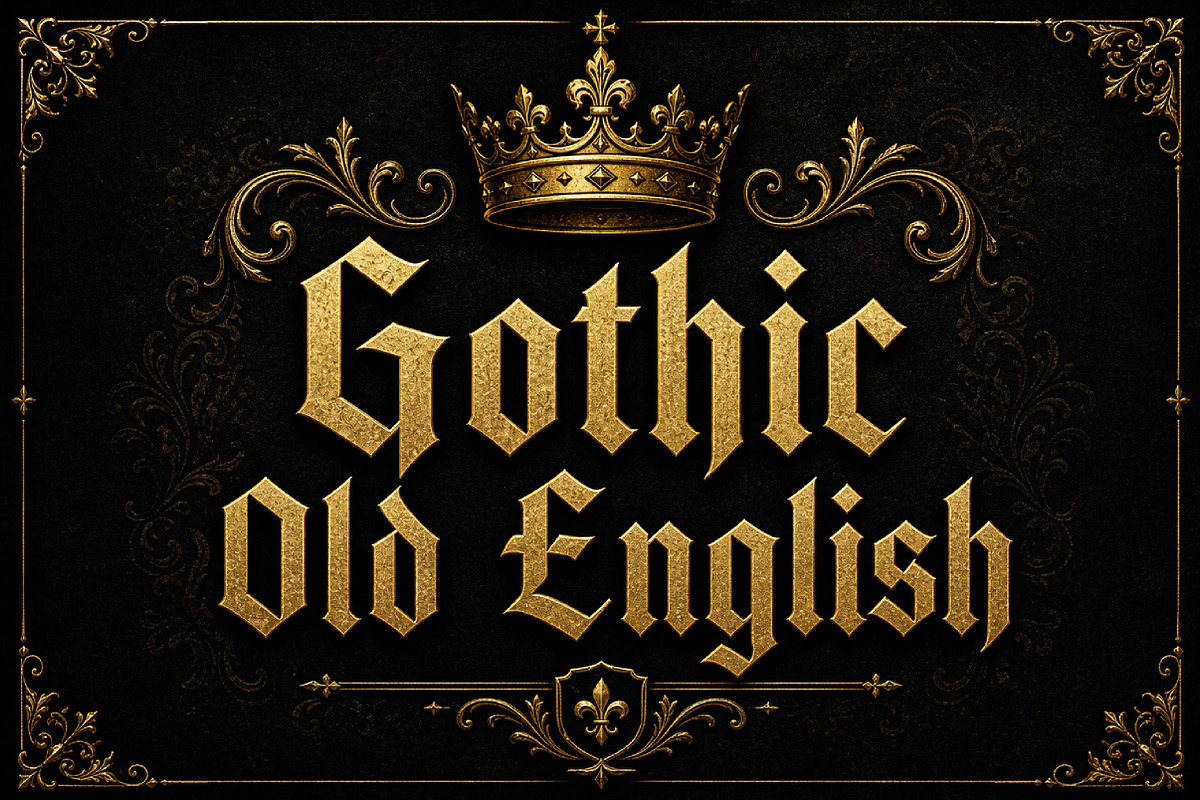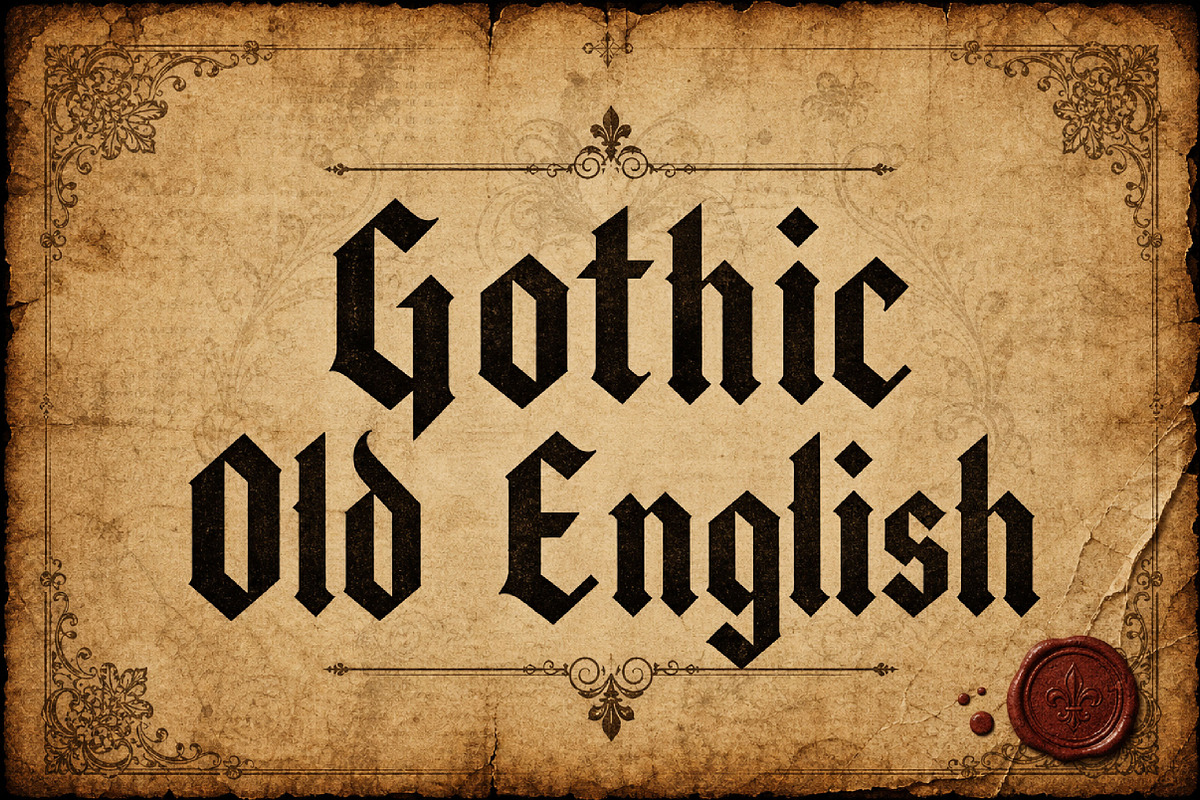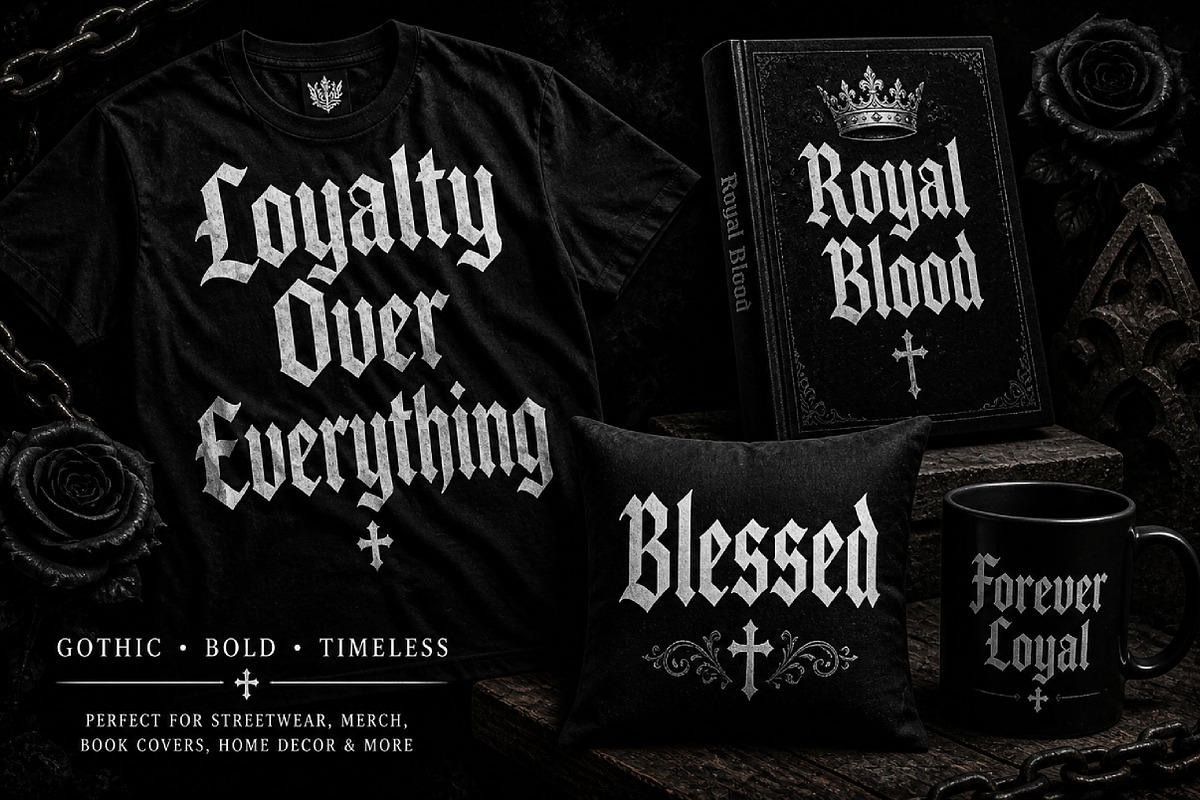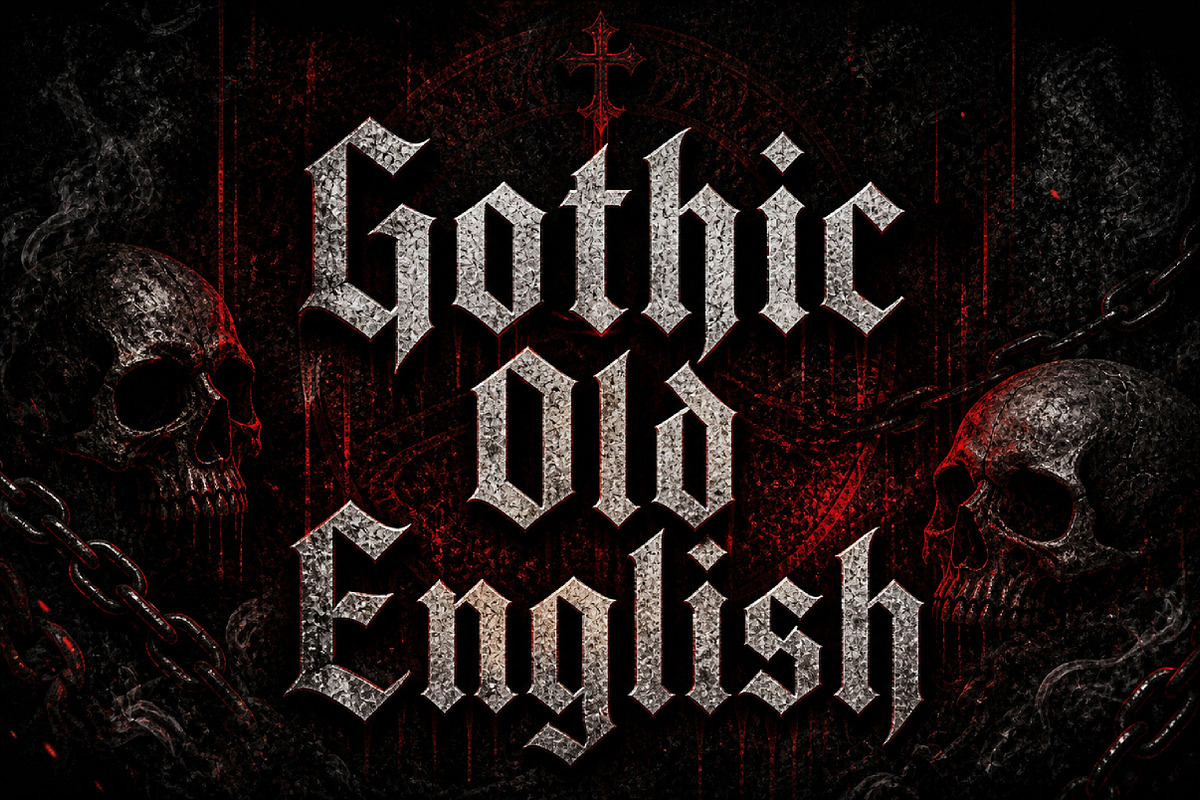
Gothic Old English
Gothic Old English – Classic Blackletter Display Font
Short Description
Gothic Old English is a classic blackletter display font with traditional medieval style, sharp edges, and authentic old English character. Perfect for logos, tattoos, posters, branding, and vintage designs.
Full Description
Gothic Old English is a timeless blackletter display font inspired by traditional medieval typography. Featuring sharp, angular letterforms and strong gothic structure, this font captures the authentic essence of old English calligraphy.
Its classic and bold appearance makes it ideal for projects that require heritage, authority, and historical character. Whether you're designing logos, tattoo artwork, posters, album covers, certificates, or branding materials, Gothic Old English delivers a powerful and traditional typographic style.
Perfect for both print and digital use, this font brings a sense of history, elegance, and bold identity to any design.
Logos and branding
Tattoo-style artwork
Gothic posters
Certificates and formal designs
Album covers
Vintage and medieval themes
Apparel and merchandise
Event graphics
Editorial headlines
Classic display typography
Classic blackletter style
Sharp gothic letterforms
Traditional old English design
Perfect for display use